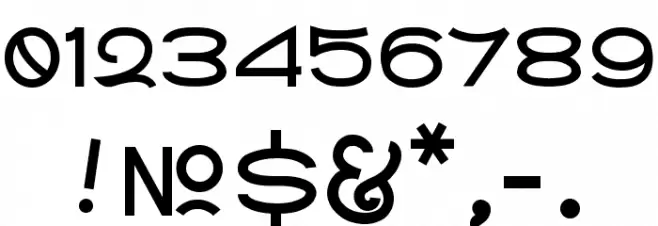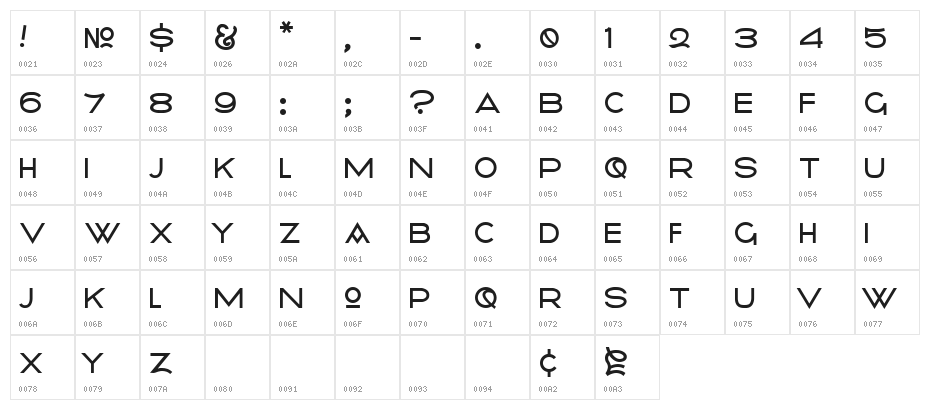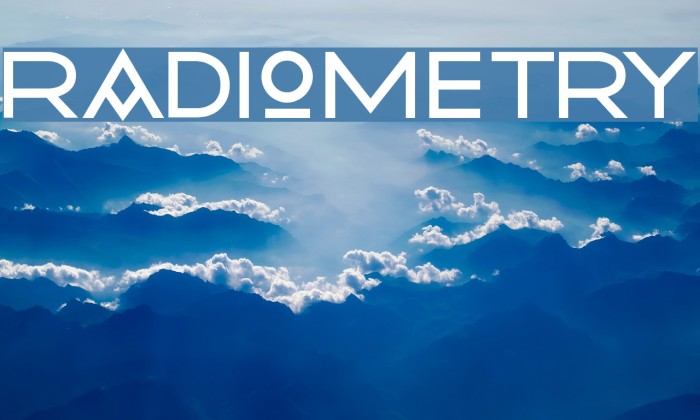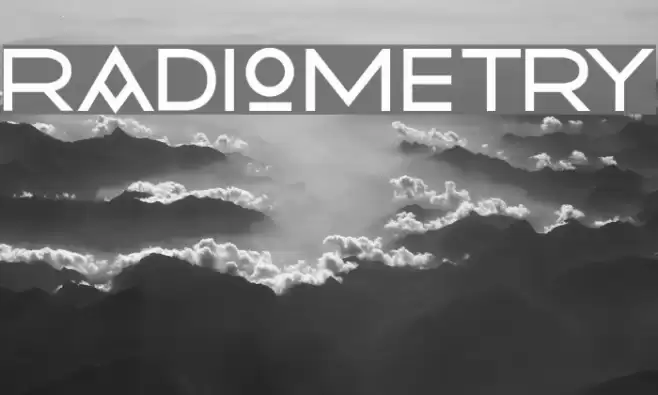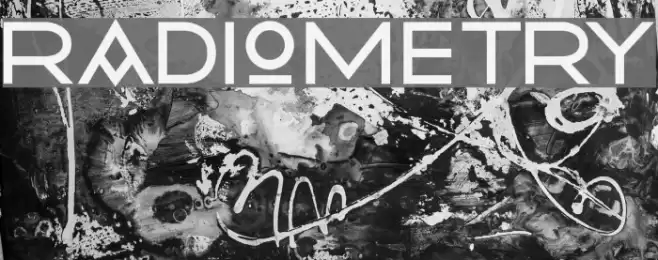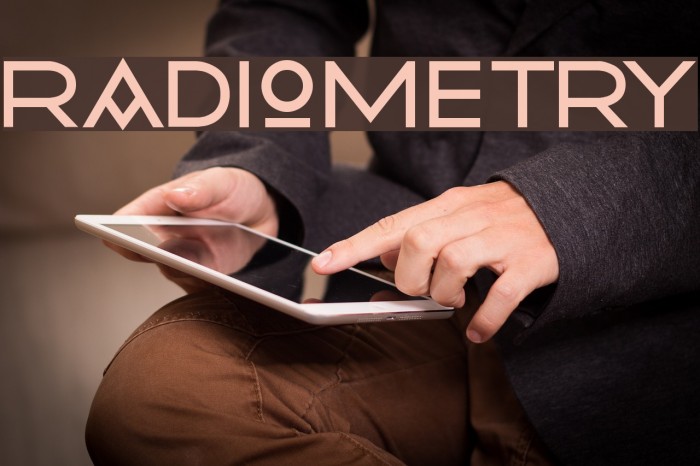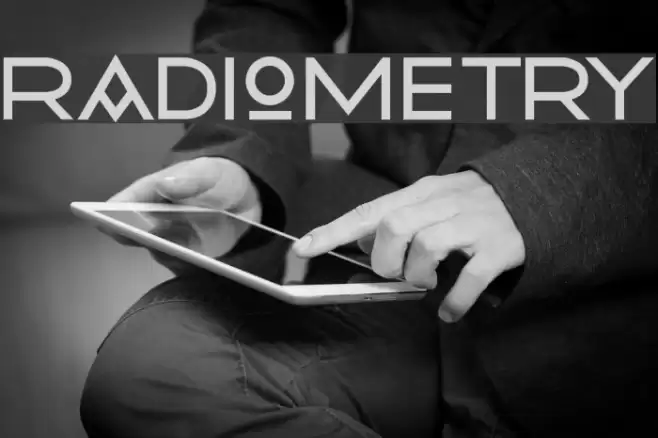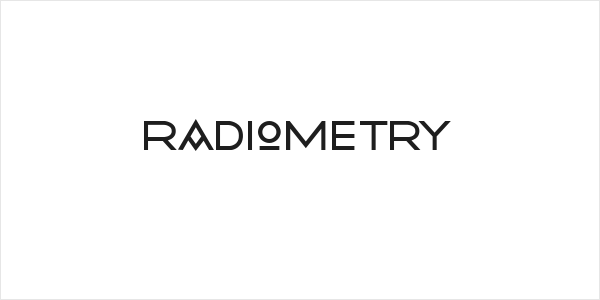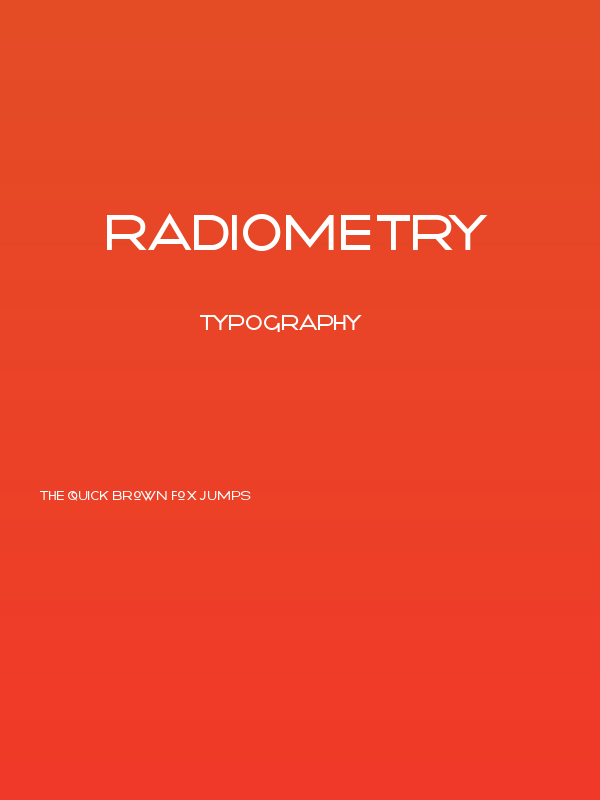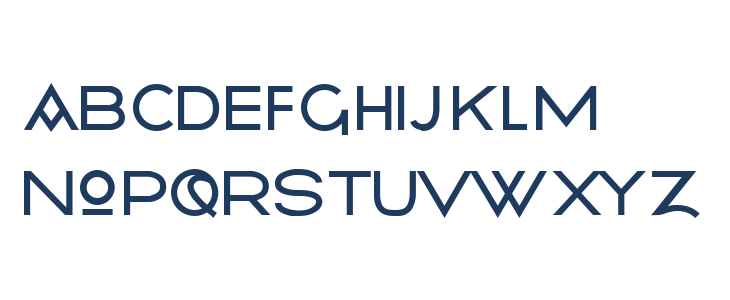
Radiometry Font
Radiometry Description
This font features a modern and geometric design with clean, sharp edges and a uniform stroke width. The uppercase letters are bold and assertive, while the lowercase letters maintain a consistent style that complements the uppercase. The numerals are distinct and easy to read, with a slight futuristic touch. Special characters are designed with the same geometric precision, making them stand out while remaining cohesive with the overall font style. The font's simplicity and clarity make it versatile for various design applications.
| Use Case | Headlines, Logos, Digital Interfaces |
| Proposed Projects | Ideal for branding, advertising, and digital interfaces where a modern and clean aesthetic is desired. |